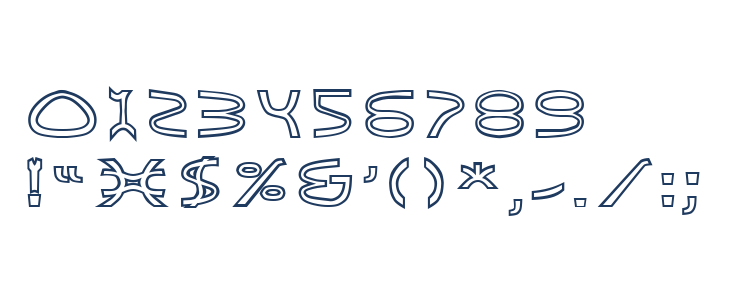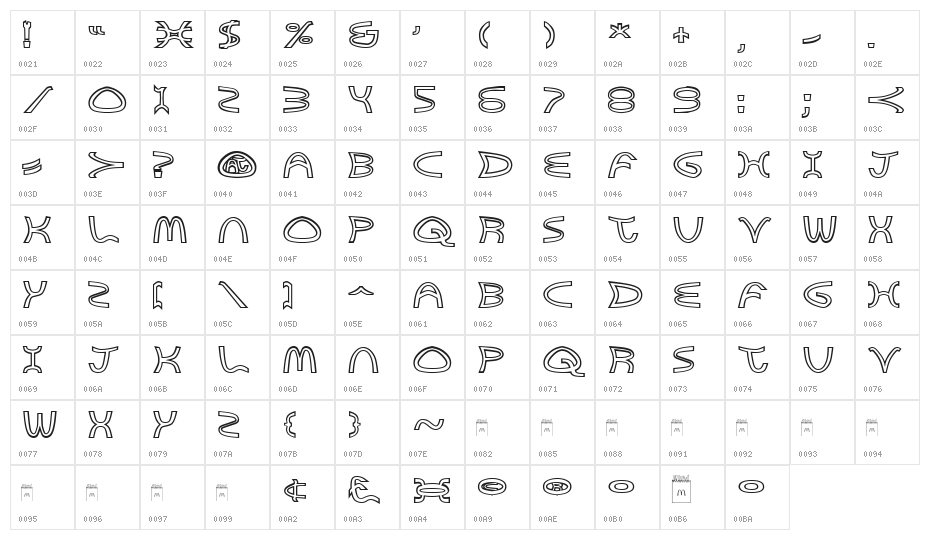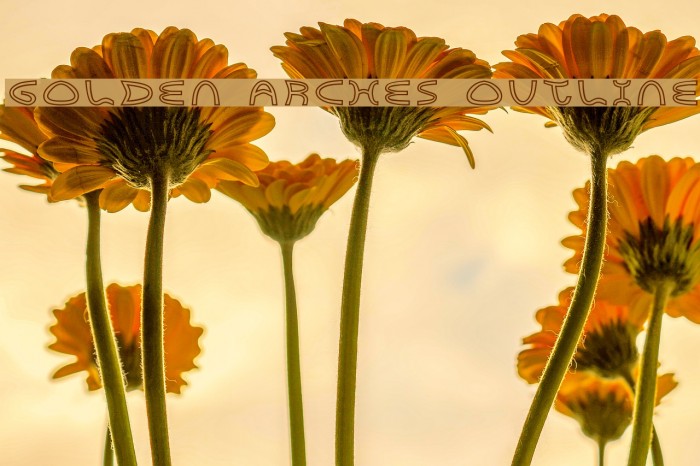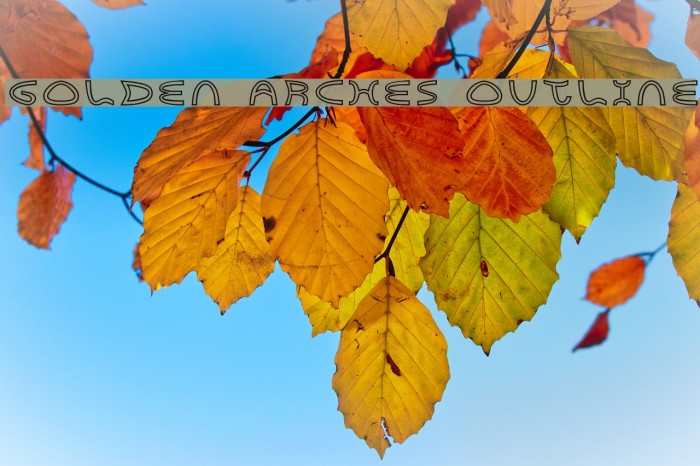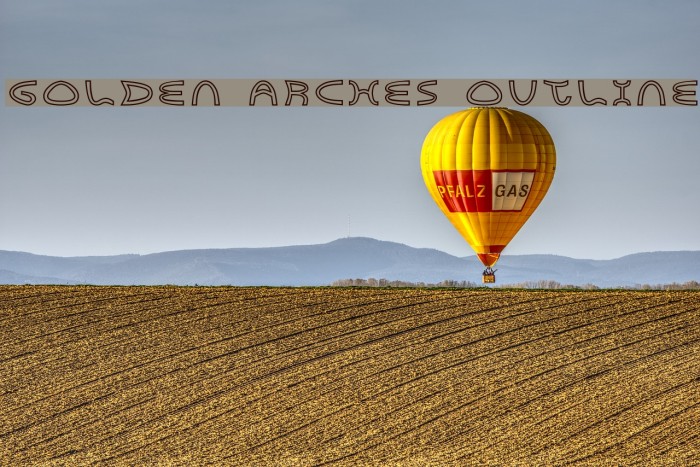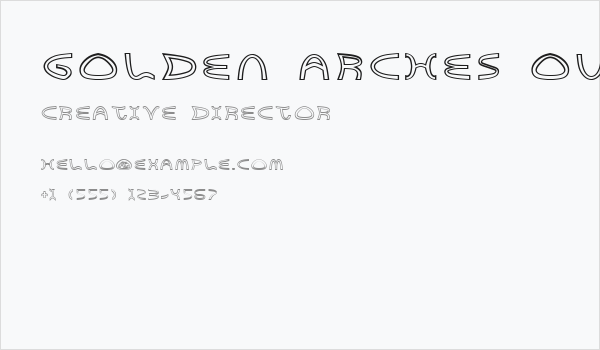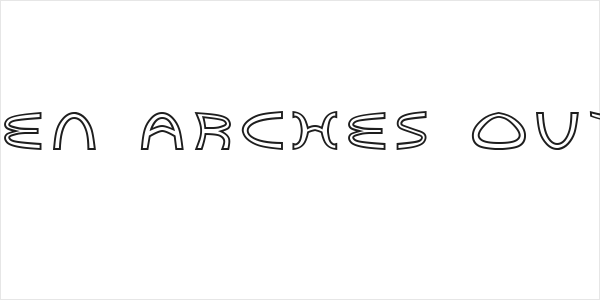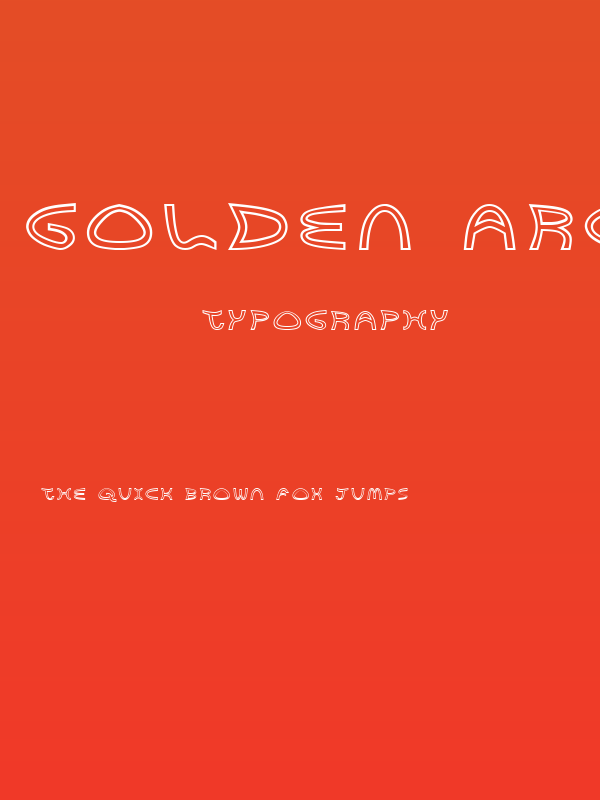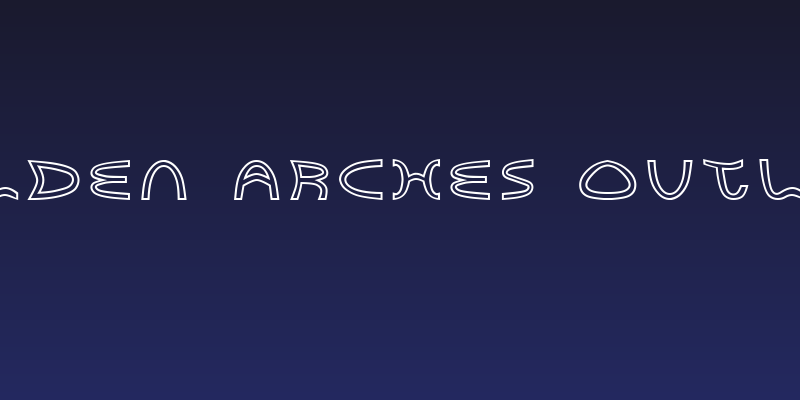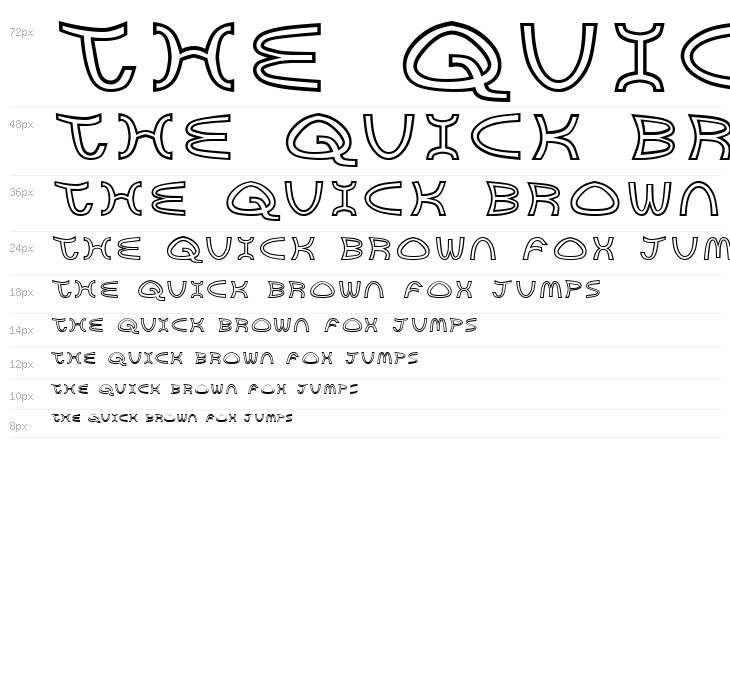
Golden Arches Outline Font
Golden Arches Outline Description
This font features a unique outline style with a playful and bold appearance. The characters are designed with a double-line effect, creating an eye-catching and dynamic look. The uppercase letters have a consistent height and width, while the lowercase letters maintain a similar style, ensuring uniformity across the text. The numbers and special characters follow the same outline pattern, making them easily recognizable and visually appealing. This font's distinct style makes it suitable for projects that require a fun and engaging aesthetic.
| Proposed Projects | Ideal for branding, posters, children's books, and playful graphic designs. |